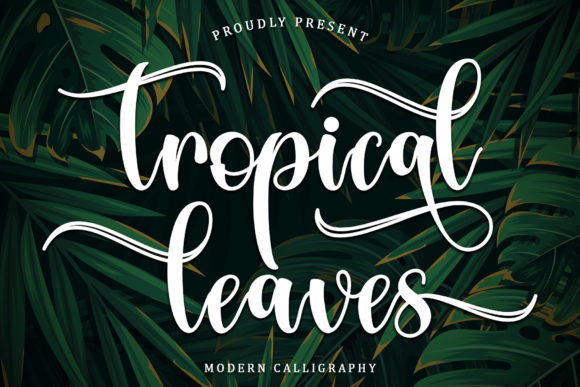
Unleash the Enchantment of Tropical Leaves Font: Where Nature's Beauty Meets Digital Elegance
Journey into a world of captivating typography with Tropical Leaves Font, a captivating script font that will ignite your creativity. Inspired by the lush foliage and vibrant hues of tropical rainforests, this font is a symphony of nature's beauty, rendered in the digital realm. With its graceful strokes and enchanting ligatures, Tropical Leaves Font is an artistic masterpiece that will elevate your designs to new heights.
Crafted with meticulous attention to detail by Sakha Design, Tropical Leaves Font embodies the essence of luxury and sophistication. Its sweeping curves and organic forms create a sense of movement and fluidity, capturing the essence of nature's rhythm. Whether you're designing wedding invitations, branding materials, or social media graphics, Tropical Leaves Font will add a touch of elegance and charm to your projects.
Immerse yourself in the vibrant world of Tropical Leaves Font and discover its endless possibilities. Its PUA encoding allows for effortless access to a treasure trove of stunning glyphs and ligatures, empowering you to create captivating designs that are bursting with personality. Unleash your imagination and let Tropical Leaves Font transport you to a realm of visual enchantment.
Embrace the Allure of Nature with Tropical Leaves Font: A Journey of Artistic Expression
Indulge in the exquisite beauty of Tropical Leaves Font, a font that captures the allure of nature's wonders. With its delicate strokes and graceful curves, this font is a testament to the intricate artistry found in the natural world. As you explore the depths of Tropical Leaves Font, you'll discover a spectrum of creative possibilities, from enchanting wedding invitations to captivating branding materials.
Feel the pulse of the rainforest as Tropical Leaves Font dances across your designs, evoking a sense of tranquility and harmony. Its organic forms and fluid lines create a visual symphony that draws the eye and captivates the senses. Let Tropical Leaves Font be your muse as you embark on a journey of artistic expression, transforming your ideas into breathtaking creations.
Experience the Simplicity and Beauty of Tropical Leaves Font: A Gateway to Creative Brilliance
Embrace the effortless beauty of Tropical Leaves Font, a font that simplifies the design process while unlocking a world of creative possibilities. Its intuitive design and user-friendly interface make it accessible to designers of all skill levels, allowing you to create stunning designs with ease. Whether you're a seasoned professional or just starting your creative journey, Tropical Leaves Font will guide you towards design excellence.
With Tropical Leaves Font, you'll discover the joy of seamless creativity as your designs flow effortlessly from concept to completion. Its intuitive features and comprehensive character set empower you to express your unique style and vision, transforming your creative ideas into tangible works of art. Let Tropical Leaves Font be your creative companion, unlocking the door to a world of boundless imagination.